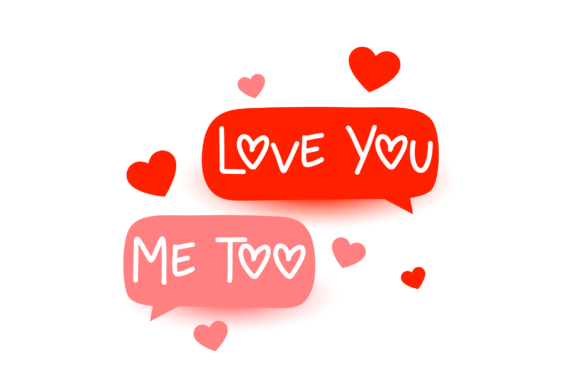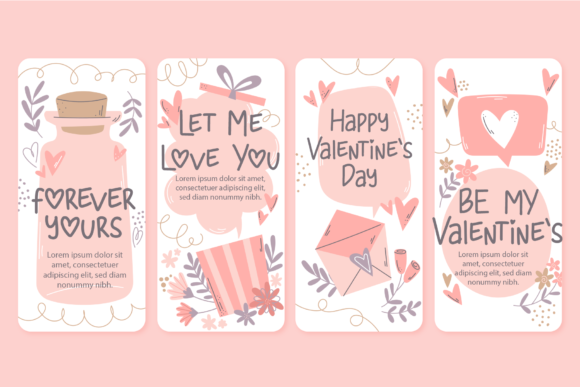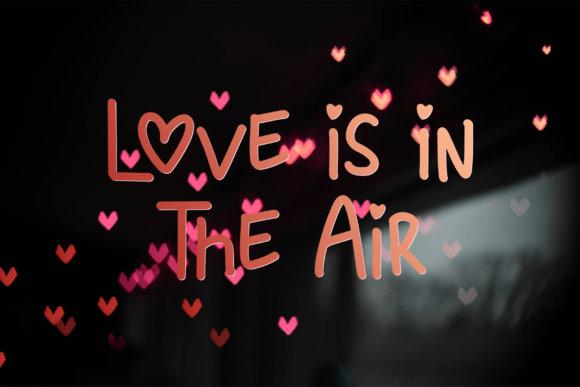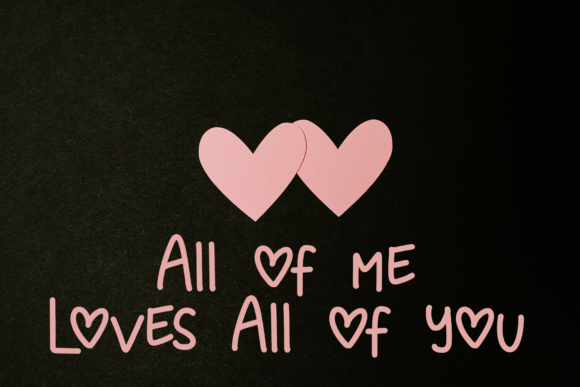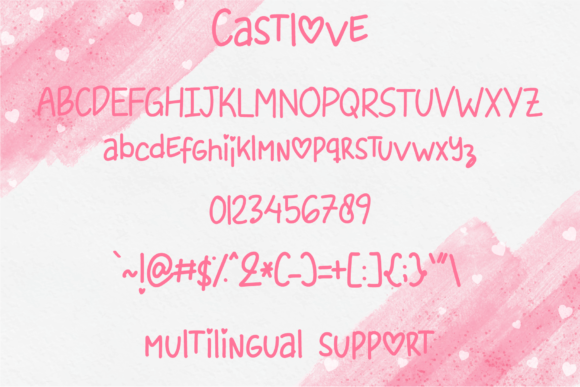
Introduction to Castlove Font
As a designer, there’s nothing quite like the thrill of bringing a creative project to life. It’s the moment when all the elements come together, and your vision finally takes shape. For many of us, this moment is often triggered by a single font – one that sets the tone and gives our work that special something. For me, that font is often the Castlove Font, a simple yet quirky handwritten font that never fails to add a relaxed touch to any design.
Whether you’re working on a personal project or a commercial design, the Castlove Font is a valuable resource that can elevate your work to the next level. Its informal style and casual vibe make it the perfect choice for designs that require a high-quality, yet laid-back feel. And the best part? It’s completely free to download, giving you access to a versatile design resource that’s perfect for any creative project.
With its transparent background and adaptable nature, the Castlove Font is a game-changer for designers. It’s the perfect tool for adding a personal touch to your work, and its high-quality design ensures that your projects will stand out from the crowd.
Key Features of Castlove Font
- High-quality design resource for creative projects, offering a unique and stylish aesthetic.
- Castlove Font features a transparent background, making it ideal for use on dark or busy backgrounds.
- Includes a range of characters and glyphs, including uppercase and lowercase letters, numbers, and punctuation marks.
- Perfect for use in various design projects, including logos, graphics, and typography-based artwork.
- Castlove Font is a versatile and modern design resource, ideal for designers seeking a high-quality, free download for their creative projects.
Honest Review: Castlove Font
I recently had the chance to work with the Castlove Font, and I must say it’s been a game-changer for my creative projects. This font is a high-quality design resource that offers a wide range of styles and versatility.
- High-quality design: The Castlove Font is crisp, clear, and beautifully designed, making it perfect for any creative project.
- Wide range of styles: With its various styles and weights, this font is suitable for a variety of design needs.
- Transparent background: The font’s transparent background allows for seamless integration with other design elements.
While the Castlove Font is an excellent resource, there are a few limitations to be aware of:
- Limited customization options: While the font offers various styles, it may not be suitable for designers who require extensive customization.
Overall, I’m impressed with the Castlove Font and would highly recommend it for any creative project. Its high-quality design, wide range of styles, and free download make it an excellent design resource.
Using Castlove Font in Creative Projects
Castlove Font is perfect for creative projects requiring a unique and stylish font. It can be used in a variety of design applications, including Canva, Adobe Photoshop/Illustrator, and PowerPoint/Word.
Tips for Getting the Most Out of Castlove Font
For a transparent background, use the font with a white or light-colored background. Experiment with different font sizes and styles to add visual interest to your design.
Common Use Cases for Castlove Font
Castlove Font is ideal for use in logos, headings, and titles. Its unique design makes it perfect for creative projects requiring a stylish and eye-catching font.